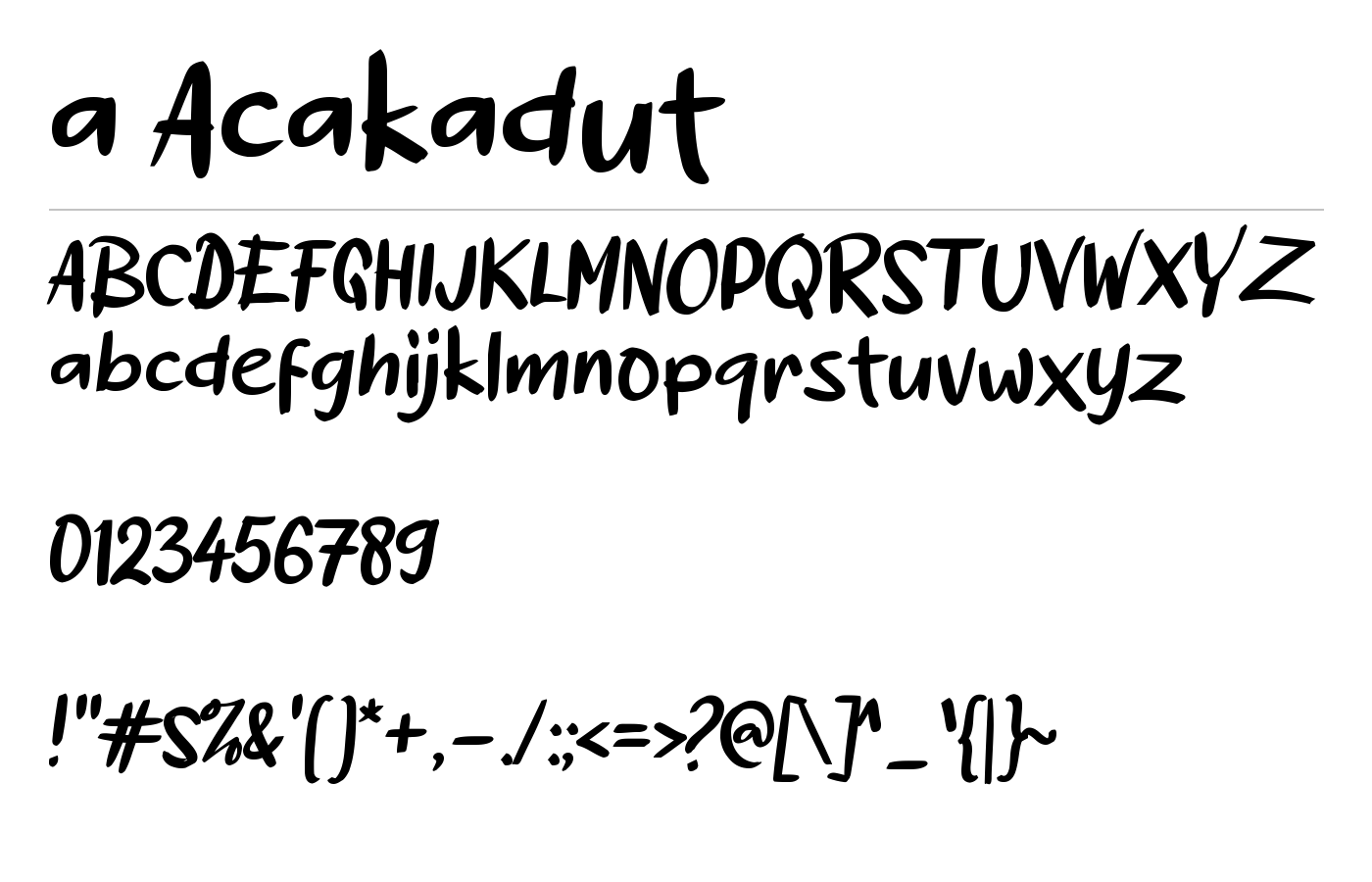
Acakadut is a lively, casual handwritten font with a playful and friendly vibe. Its irregular, slightly tilted letterforms and smooth strokes add a personal, approachable touch, making it ideal for informal designs such as children's books, creative projects, or playful branding. This font stands out in headlines and logos where a fun, warm personality is desired.
a Acakadut Font